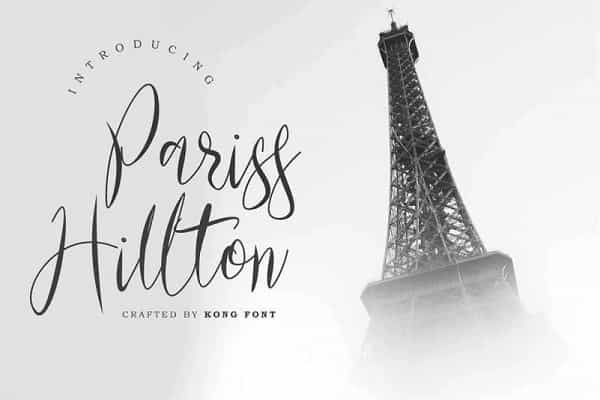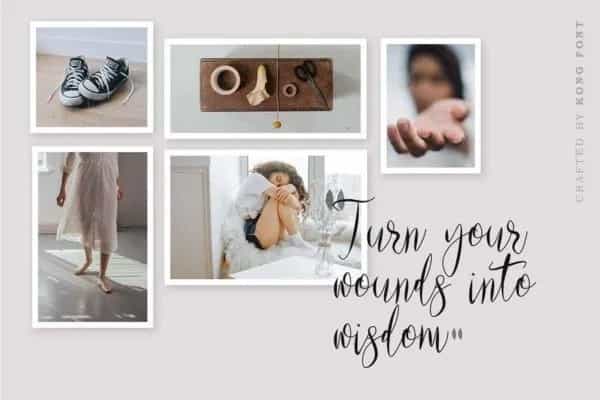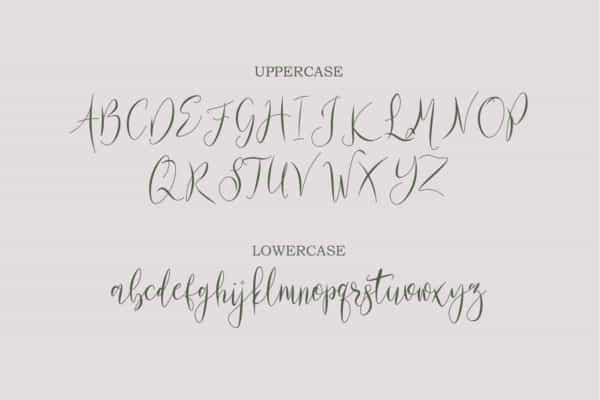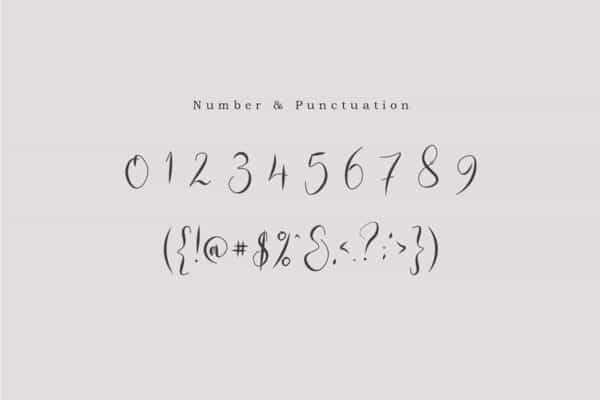
Pariss Hillton is a current calligraphy font style. Browmen’s has alternate characters. These are the terminal and initial letters, the alternative characters, and multiple languages support.